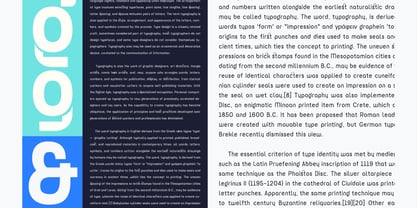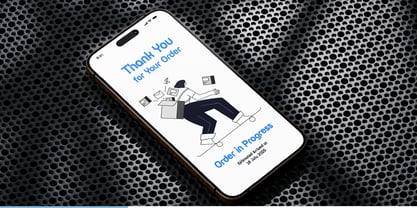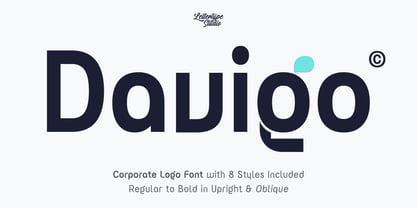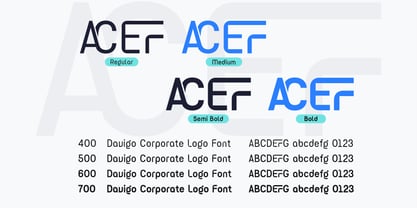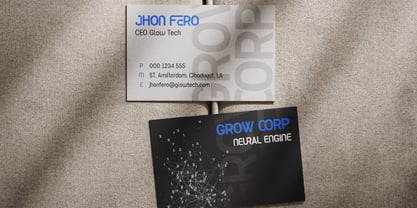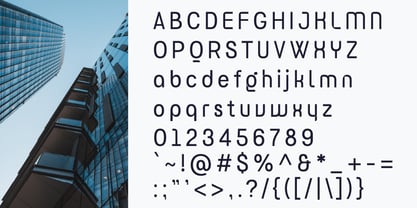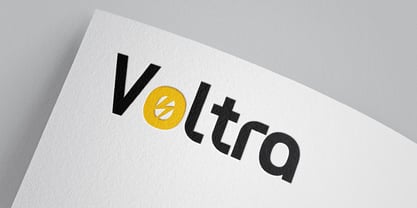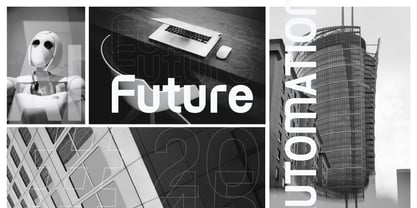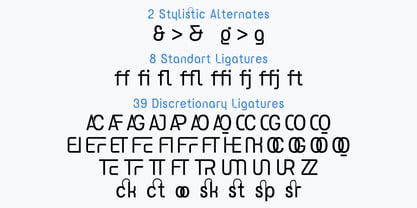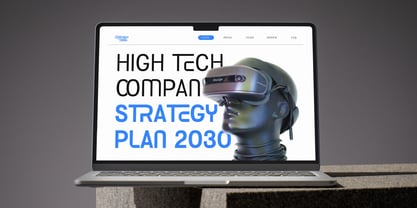
Davigo
Die Schriftfamilie Davigo wurde von Diki Pradipta Tri Atmojo entworfen und von Lettertype Studio veröffentlicht. Davigo enthält 8 Stile und Familienpaketoptionen.
Davigo is a clean, versatile geometric sans-serif font that brings professionalism and clarity to your design projects. Inspired by modern business culture and global branding standards, Davigo features sharp alignment, balanced letterforms, and smooth curves that make it both readable and iconic. It's built for high-impact headlines, powerful branding, pitch decks, logo types, web UI, and more.
This font includes 8 styles, ranging from Regular to Bold and Oblique versions, providing flexibility and control across any layout or platform. With its minimalist elegance and well-calibrated weight system, Davigo works beautifully in both digital and print formats. Whether you're creating a corporate identity, a startup presentation, a clean-tech website, or a financial report, this font ensures your message stands strong and looks refined. It also supports multilingual characters and comes with uppercase, lowercase, punctuation, and numerals — a perfect fit for designers aiming for clarity, simplicity, and impact.